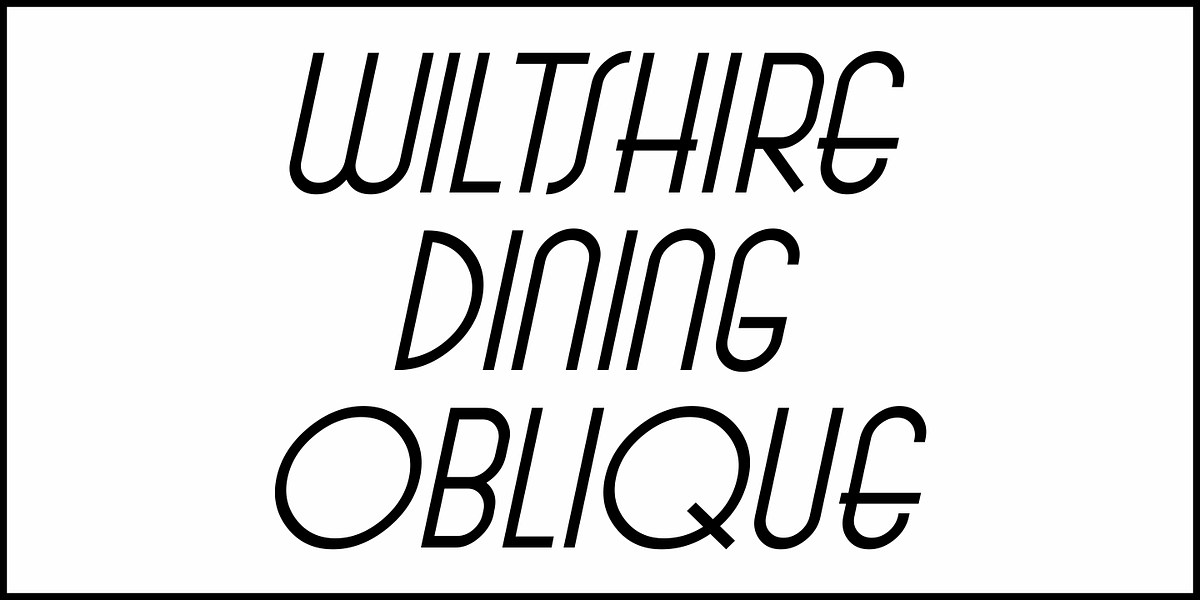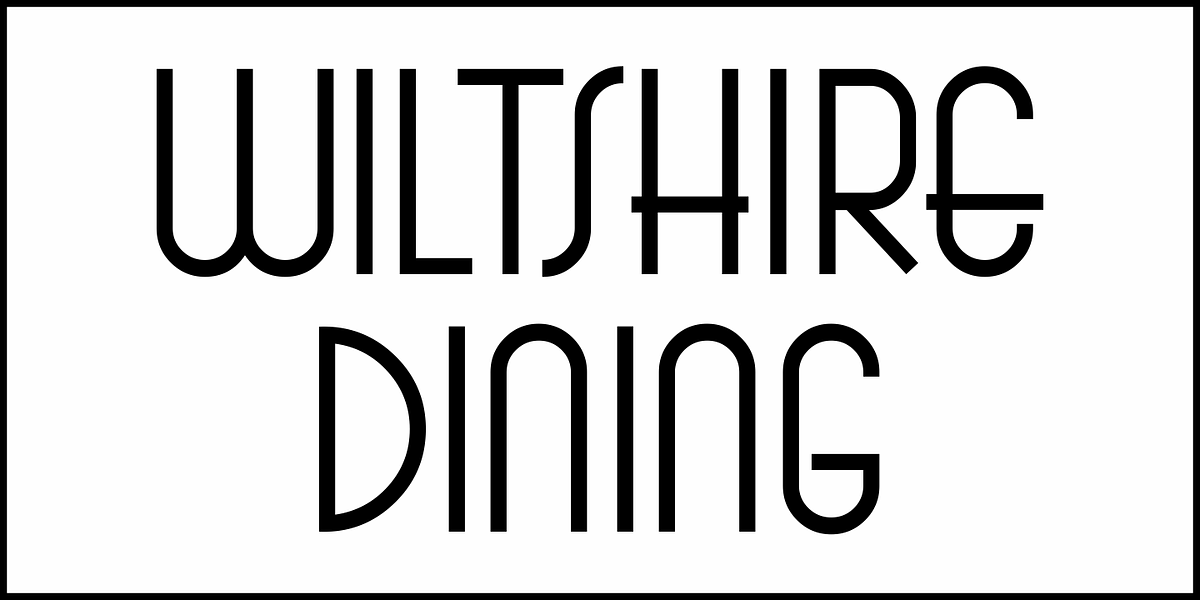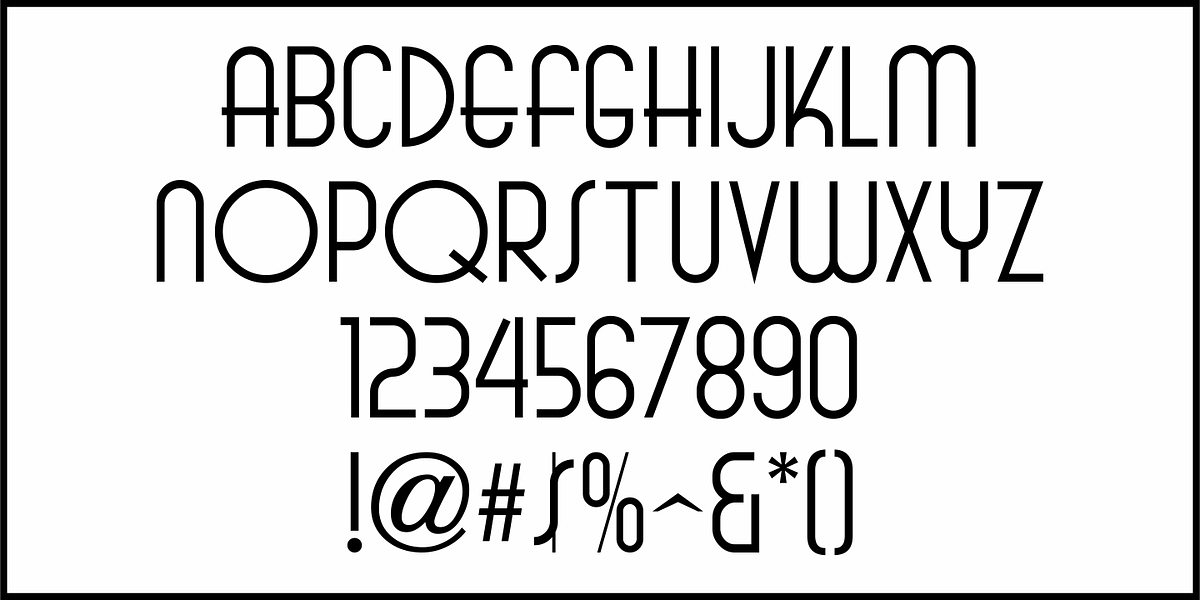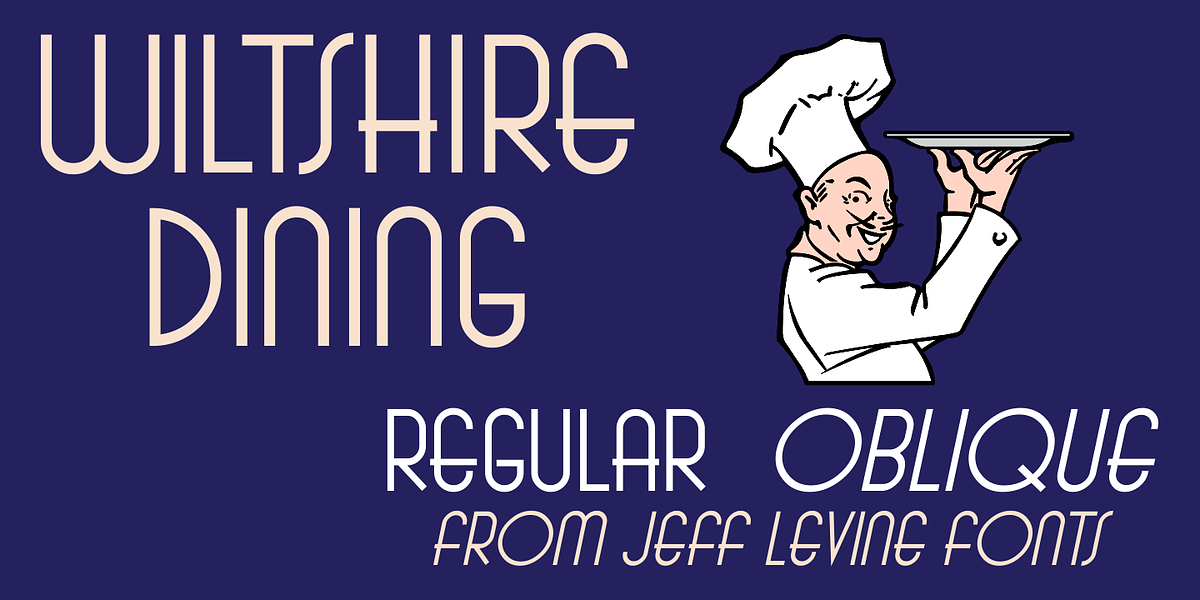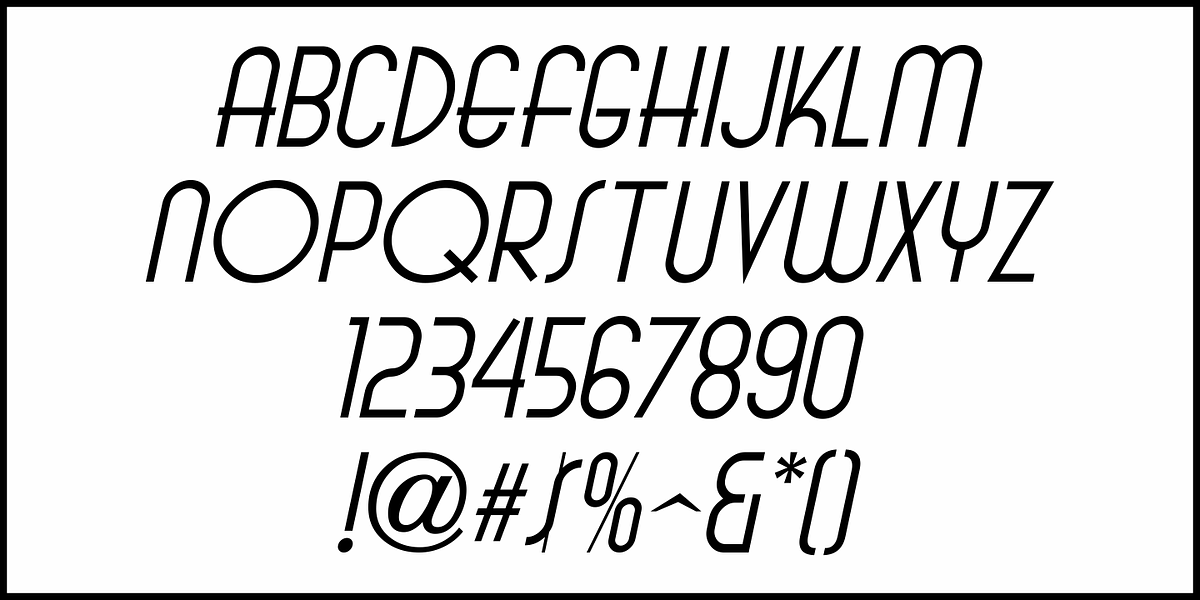
Wiltshire Dining JNL
Inside a theater program for the 1937 premiere of "Snow White and the Seven Dwarfs" was a congratulatory ad from the Melody Lane of Wiltshire restaurant.
The restaurant's name was set in Art Deco lettering with thin strokes, and those few letters inspired the digital typeface Wiltshire Dining JNL, which is available in both regular and oblique versions.